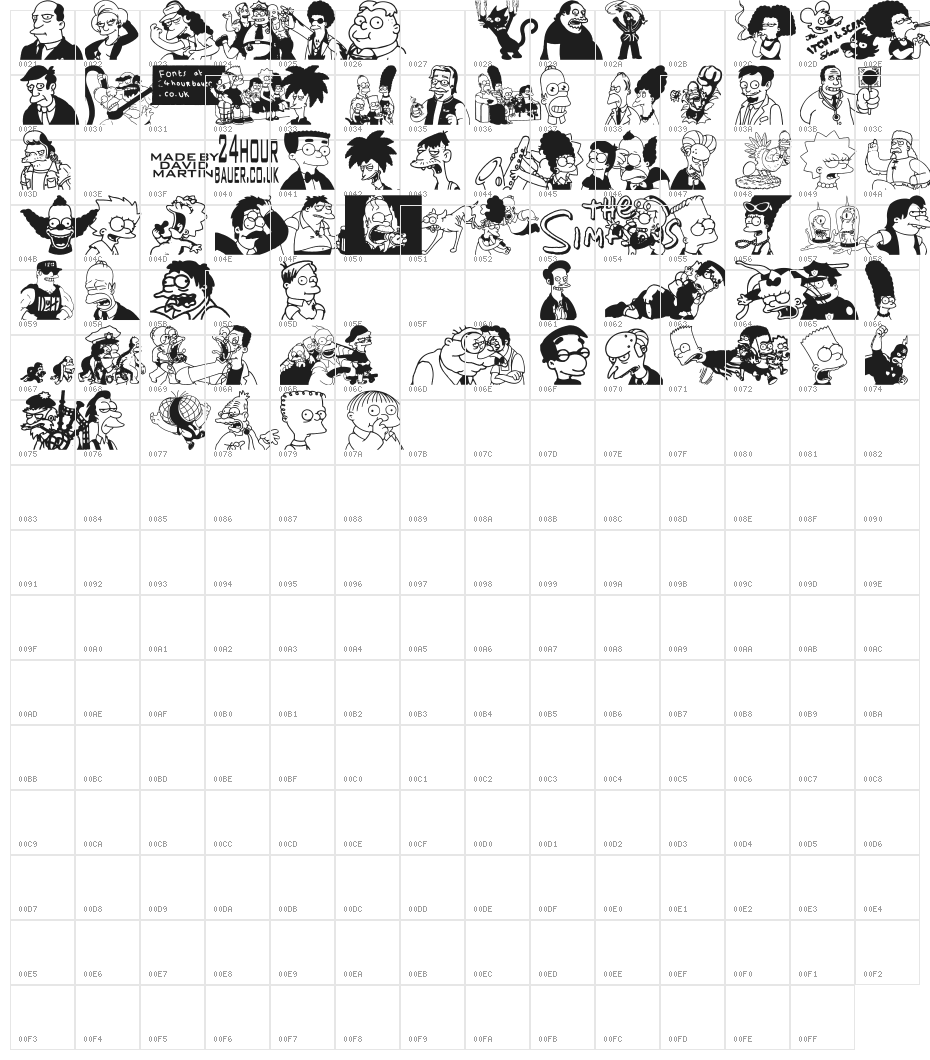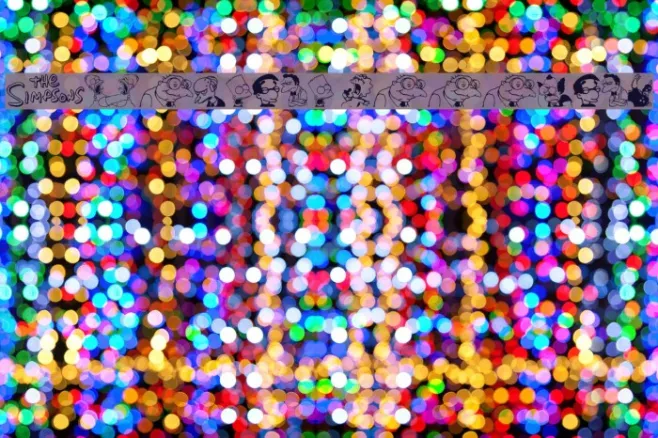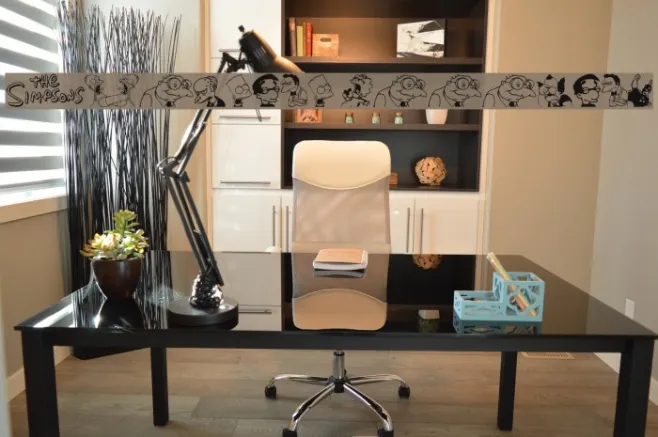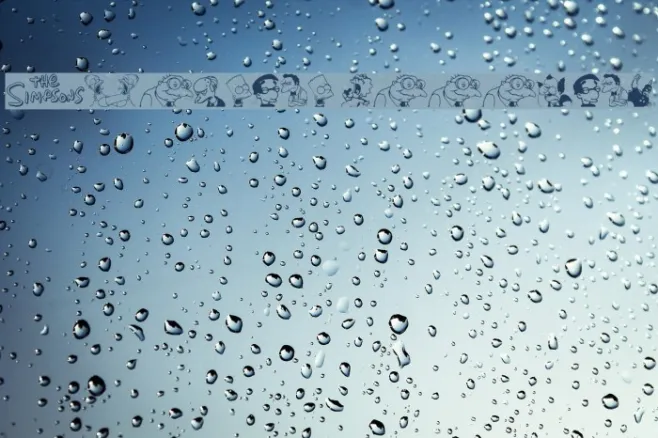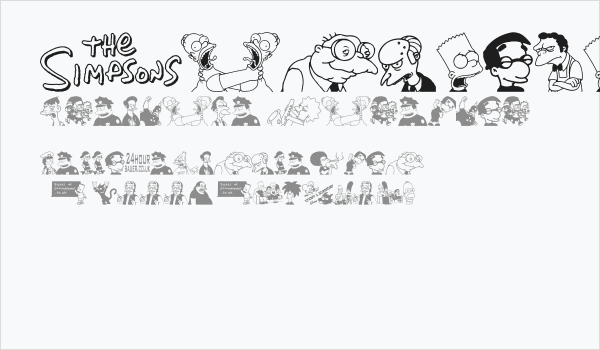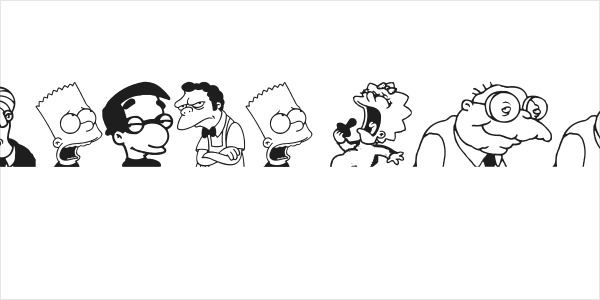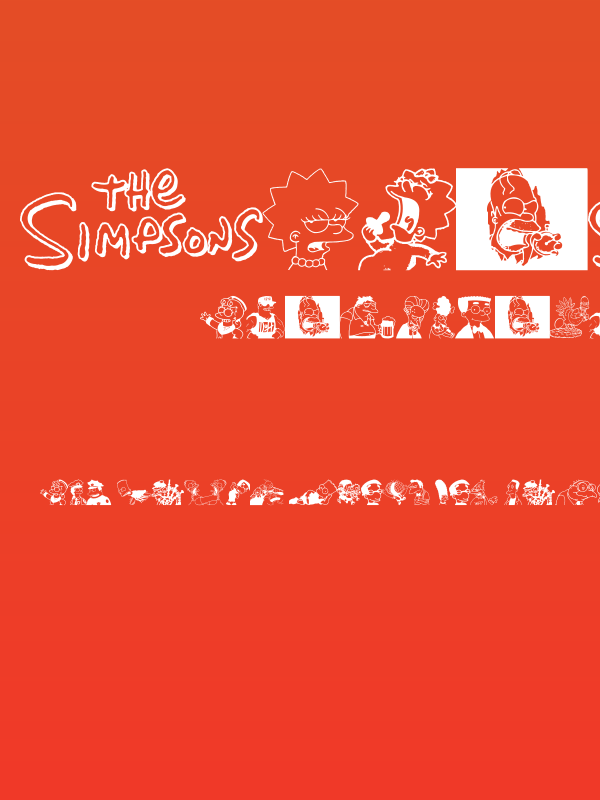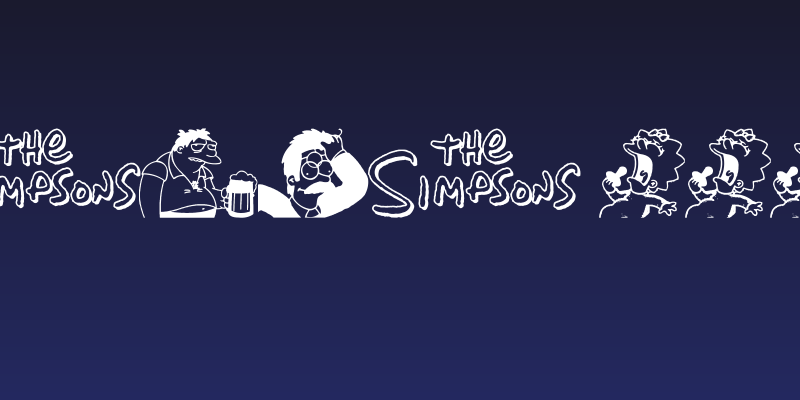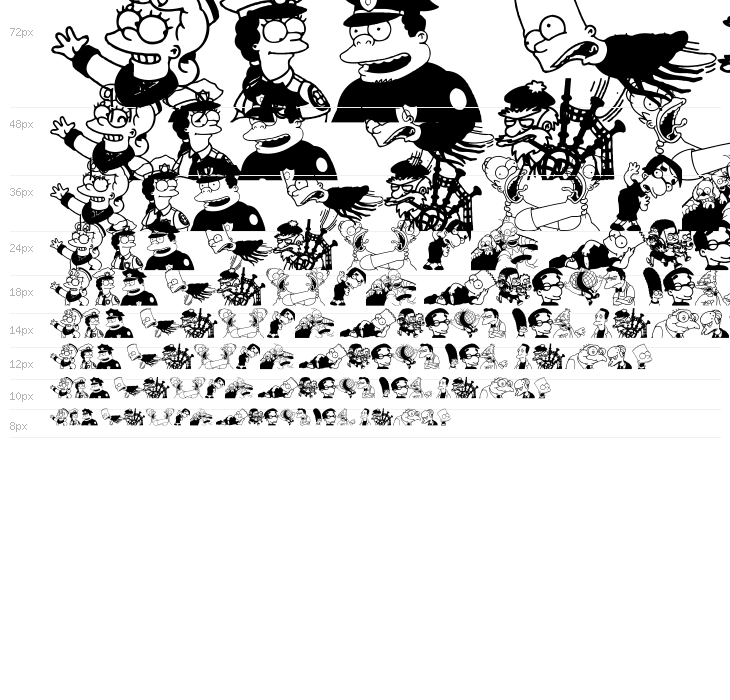
Simpsons MmmmFont Font
Simpsons MmmmFont Description
A decorative display font featuring detailed black-and-white cartoon illustrations of various characters and scenes, each glyph representing a unique drawing rather than a traditional letterform. The style is playful and highly recognizable, with bold outlines and expressive figures.
| Overall Style | Decorative, Playful, Cartoonish |
| Use Case | Logos, Posters, Themed Graphics, Event Materials |
| Proposed Projects | Fan art posters, themed party invitations, novelty merchandise, comic strips, parody graphics. |